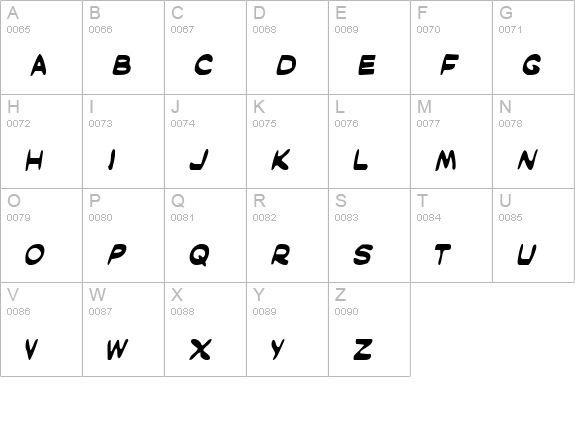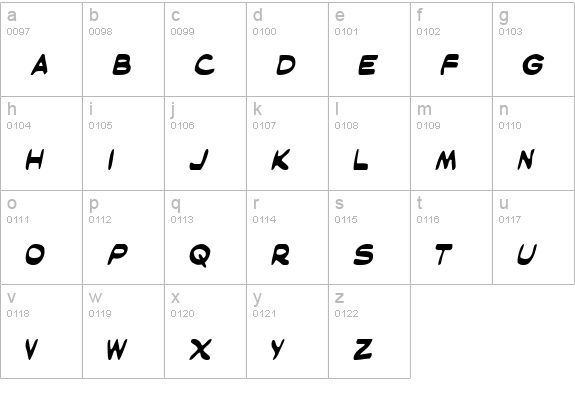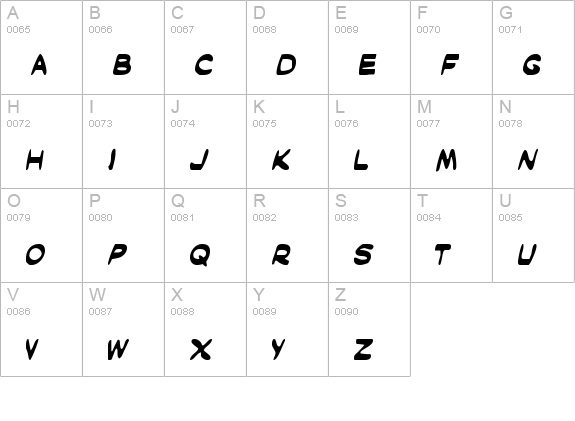
Masked Marvel Font Details
Introducing the captivating and enigmatic Masked Marvel font, a true marvel in the world of typography. With its bold and mysterious design, this font exudes an aura of intrigue and allure, making it perfect for projects that demand attention and leave a lasting impression. The Masked Marvel font boasts a unique combination of sharp edges and intricate details, creating a striking visual impact that is sure to captivate any audience. Each character is crafted with precision, showcasing a seamless balance between elegance and strength. Whether used for headlines, titles, or logos, this font will effortlessly elevate your designs to a whole new level of sophistication. But what sets the Masked Marvel font apart is not just its extraordinary aesthetics – it is also available free of charge! That's right, you can freely download this exceptional font at FontsMarket.com, allowing you to unleash your creativity without any financial burden. Now, you can bring your visions to life without compromising on quality or breaking the bank. Unleash your inner superhero and let the Masked Marvel font empower your designs with its bold and captivating presence. Download it for free at FontsMarket.com and experience the limitless possibilities that this font holds. Stand out from the crowd and make a lasting impression with the Masked Marvel font – the ultimate choice for those who dare to be extraordinary.